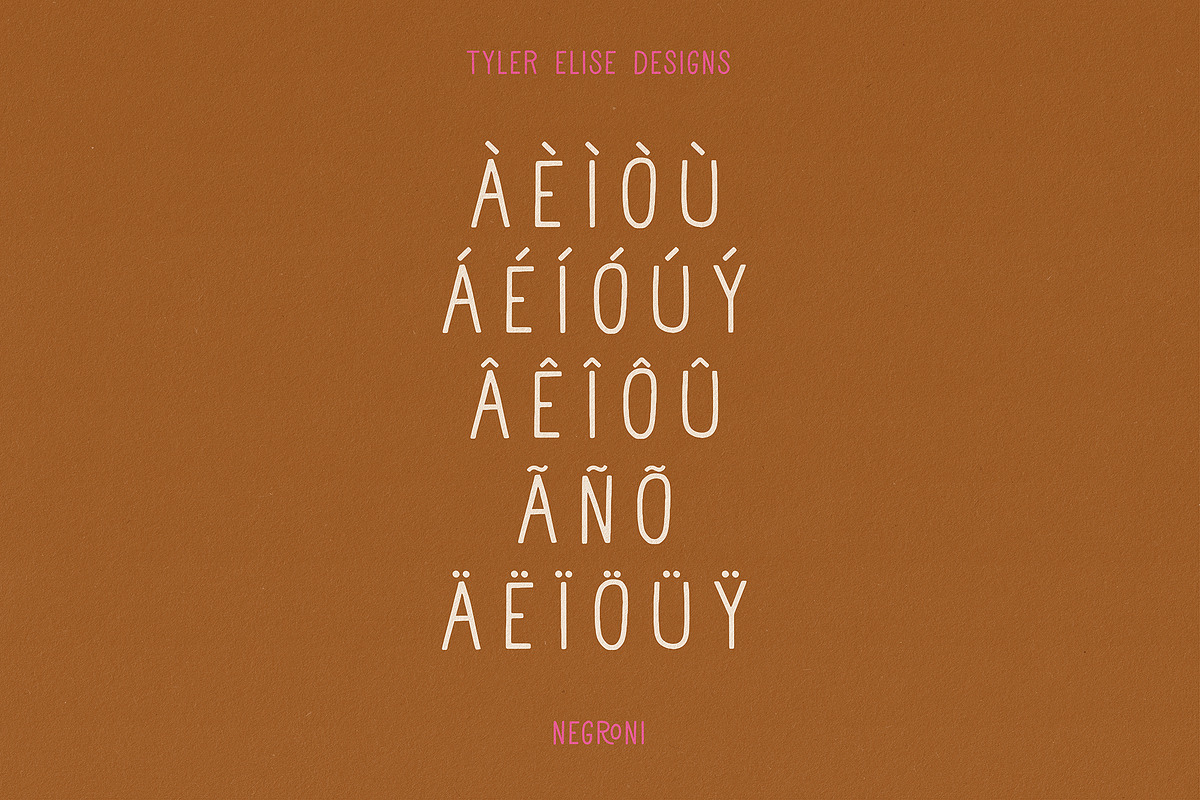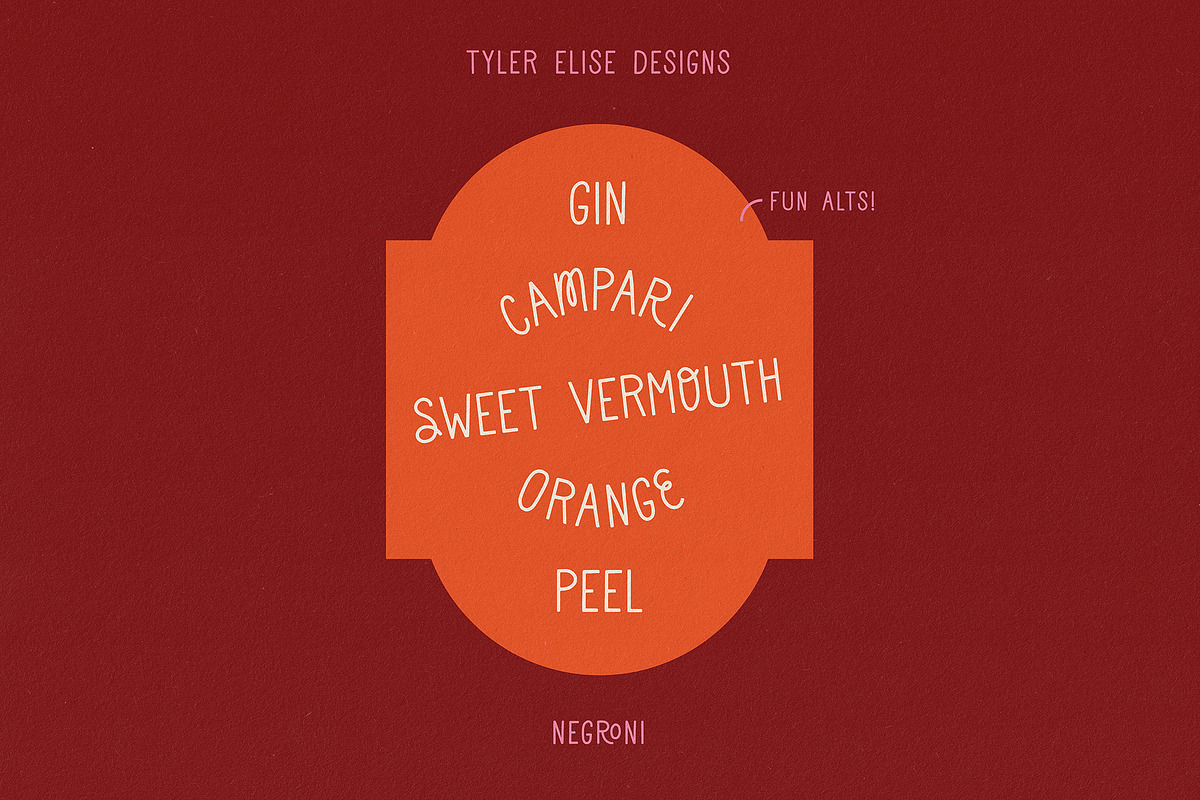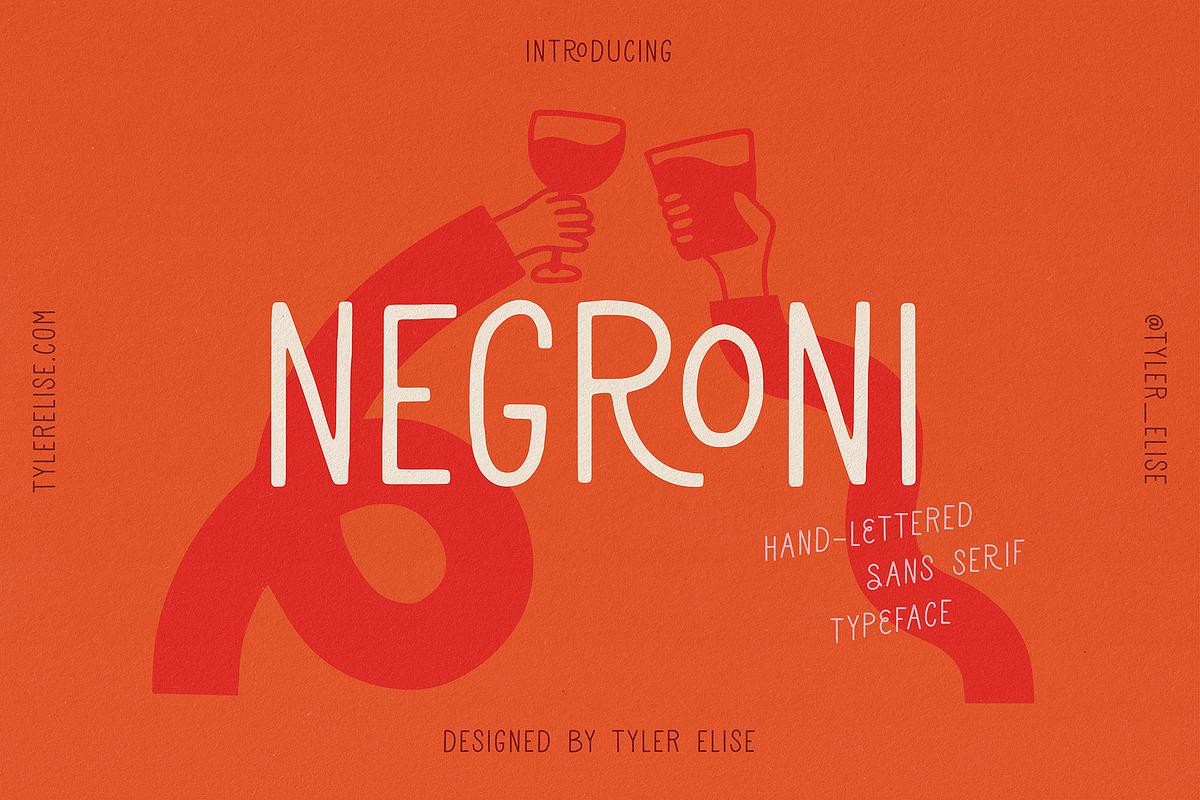
NEGRONI by Tyler Elise
NEGRONI is the ultimate funky hand-lettered typeface. With fun and versatile alternate characters, it'll inject heaps of personality into your next logo or design project.